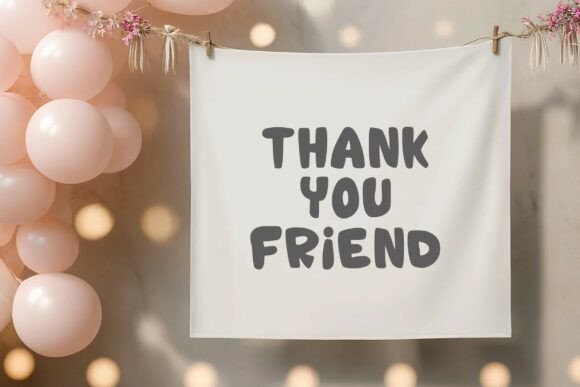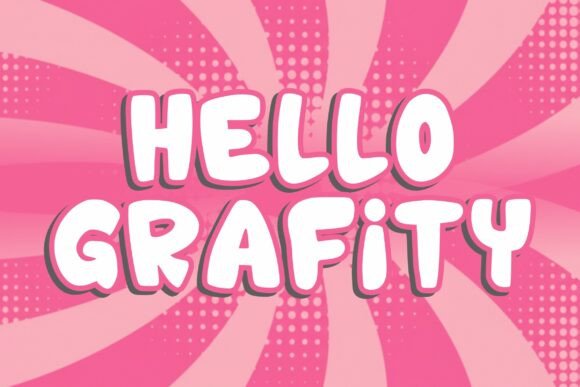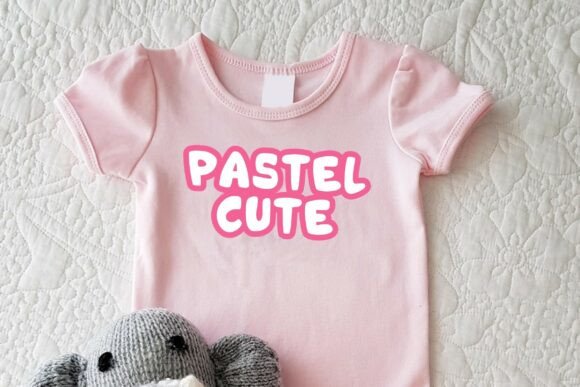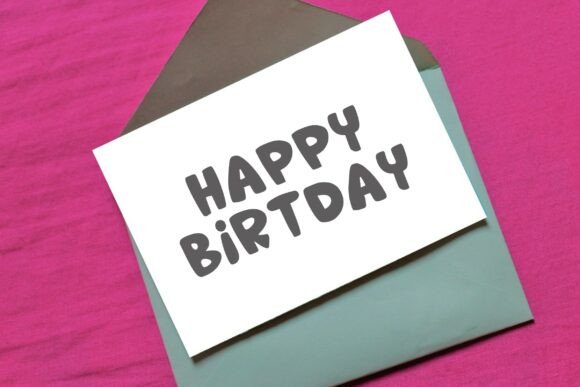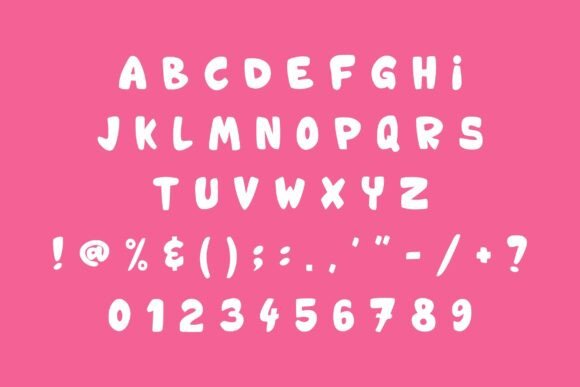
The Power of Playful Typography: Discovering the Comic Heroes Font
Do you remember the excitement of discovering a new comic book or watching your favorite cartoon as a kid? The vibrant colors, the quirky characters, and the infectious energy that came with it? That’s the feeling that the Comic Heroes Font aims to capture in your designs.
As a bold, playful, and eye-catching comic style font, Comic Heroes Font is perfect for adding a cheerful, energetic, and friendly touch to your projects. Whether you’re working on a kids’ book, a comic strip, or a social media graphic, this font is sure to bring a smile to your audience’s faces. For designers, Comic Heroes Font is a valuable addition to your toolkit, offering endless possibilities for creative expression and bringing joy to every project.
Comic Heroes Font Key Features
- Font Style: Comic Sans-inspired font with a unique twist, offering a mix of classic and modern elements.
- Character Set: Includes a wide range of characters, including Latin, Cyrillic, and Greek alphabets, as well as various punctuation and special characters.
- Unique Characteristics: Features bold, playful lines and rounded edges, making it perfect for comic book-inspired designs, children’s books, and editorial content.
Comic Heroes Font Review
As a designer, I’m always on the lookout for fonts that can bring a touch of personality to a project. Comic Heroes Font is one such font that caught my attention, and here’s what I think:
The font’s bold and playful nature makes it perfect for comic book-inspired projects, children’s books, or even graphic novels.
It’s highly legible, even at smaller font sizes, making it suitable for body text or captions.
The font’s versatility allows it to work well in both digital and print formats.
The font’s bold and playful nature can sometimes make it feel too loud or overpowering, especially when used in large quantities.
It may not be the best choice for formal or professional projects, where a more neutral or serious tone is required.
Overall, I think Comic Heroes Font is a great addition to any designer’s toolkit, especially for projects that require a fun and playful tone. While it may have some limitations, its versatility and legibility make it a solid choice for a wide range of applications.
Tips for Getting the Most Out of Comic Heroes Font
Use Comic Heroes Font to create eye-catching headlines, titles, and captions for your comic book-inspired projects.
Combine the font with bold colors and dynamic graphics to create a visually appealing design.
Experiment with different font sizes, styles, and colors to add depth and interest to your design.
Comic Heroes Font is ideal for:
Comic book covers and illustrations
Graphic novels and manga
Superhero-themed posters and flyers
Cartoon-style logos and branding
Alternative Comic Fonts for Designers